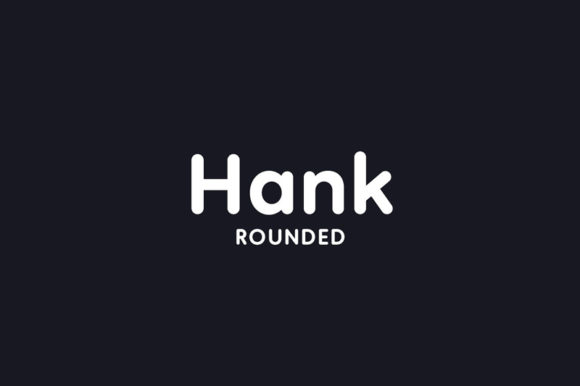
Dive into the world of digital aesthetics with the Hank Rounded Font, the epitome of tranquility and composure. This sans serif masterpiece, crafted by the visionary Reghardt, exudes a casual charm that effortlessly adds a calming touch to any design concept.
Immerse your designs in the serene embrace of Hank Rounded Font, a testament to the power of simplicity. Its softly rounded edges and clean lines create a visual harmony that soothes the soul. Let your designs emanate an aura of tranquility, inviting your audience into a realm of calm and collectedness.
Unleash your creativity with Hank Rounded Font, a versatile companion for a myriad of design endeavors. Its unassuming presence makes it the perfect choice for branding, web design, social media graphics, and countless other digital ventures. Allow Hank Rounded Font to elevate your designs, adding a subtle layer of sophistication that speaks volumes.
Transform your designs into a tranquil oasis with Hank Rounded Font, the font that whispers serenity. Its calming nature is like a soothing balm for the digital world, inviting your audience to linger and appreciate the beauty in simplicity. Let your designs become a sanctuary of tranquility, where the mind can find respite from the chaos of the digital realm.